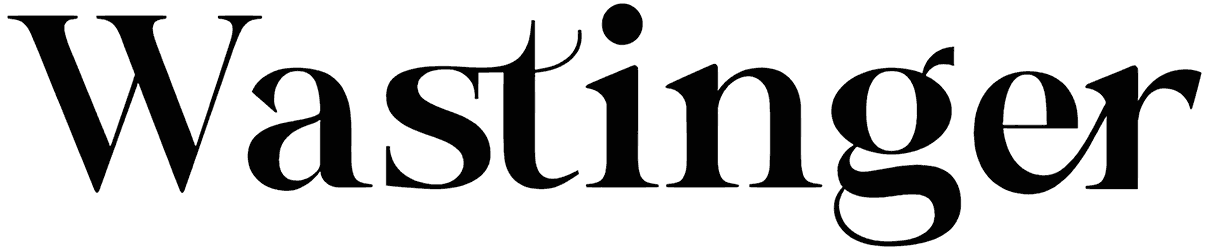
Wastinger Display Font
Without wasting time, go for your project design with a classic and polished look like Wastinger Display. Be sure that these kinda faces are always an apt choice to display any text with any theme. This luxury serif font can nicely be set on many designs like logotypes, packaging, posts, and more. What are you waiting for? Start and show originality in your design.